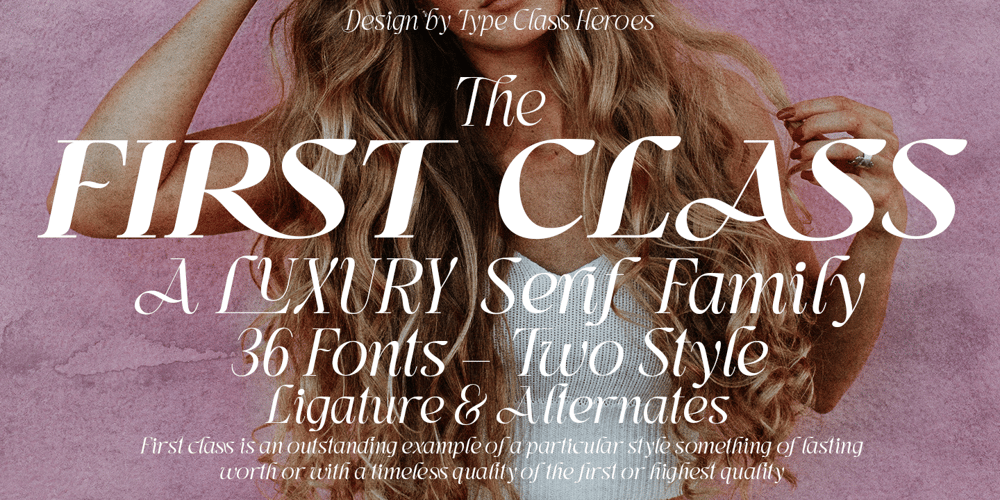
First Class Font Family was designed by Pande Made and published by TypeClassHeroes. First Class contains 36 styles and family package options. Really excited to introducing First Class is a new luxury serif family. It’s clean and smooth with 9 variable weight much ligature and alternative inside. Suitable to create any branding, product packaging, invitation, quotes, t-shirt, label, poster, logo etc.Feature – Uppercase & Lowercase – Number & Symbol – International Glyphs – Multilingual support – Alternative – Ligature